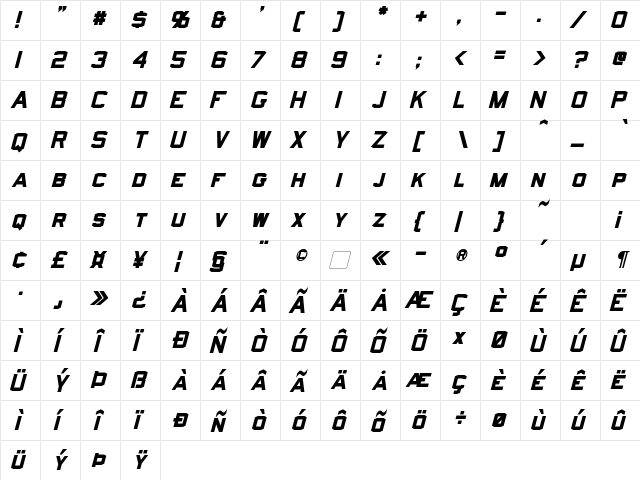
Norfolk Bold Italic Font Preview
| Foundry | Pixel Sagas |
| Designer | Neale Davidson |
Design Context for Norfolk Typeface
Norfolk takes a measured approach to typography — its balanced proportions and neutral character make it a reliable workhorse for both digital and print work. The dynamic lean of this cut emphasises speed and emphasis in any layout. Its bold stroke weight gives it real presence on the page.
Pro Tip: Try Norfolk for annotation and caption copy alongside an upright companion — the contrast in angle creates a dynamic but ordered typographic system.